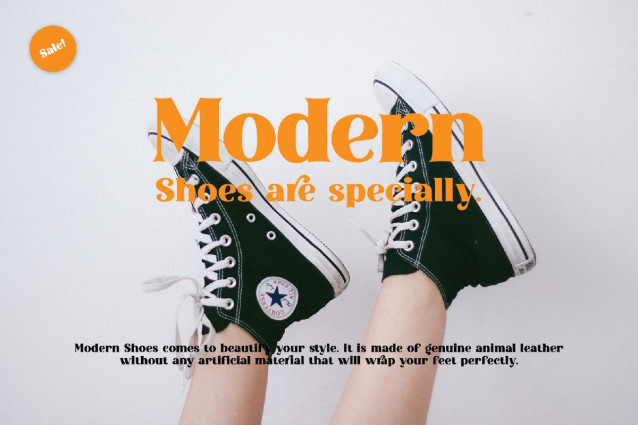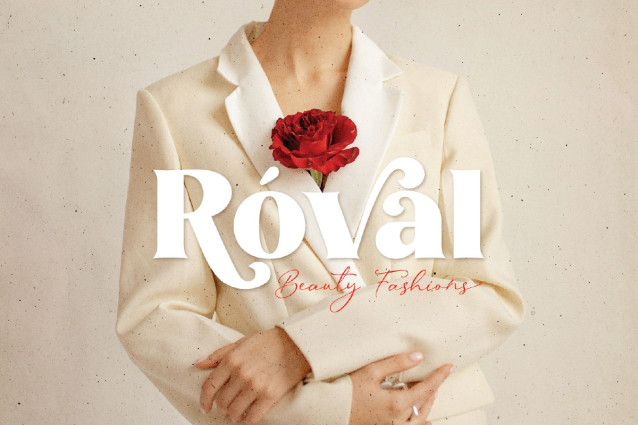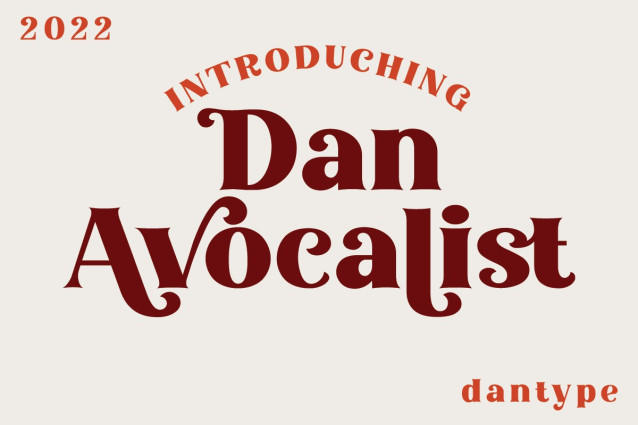
Avocalist Font
Avocalist Display font. This font would be perfect for photography, watermarks, social media posts, advertisements, logos & branding, invitations, product design, labels, stationery, product packaging, special events, and other projects.